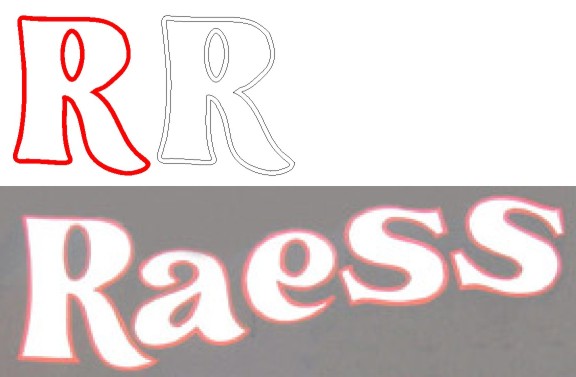
I hate to bother everyone so early, but does anyone know this one? Thanks. Whatthefont can't find it and neither can I.
So I guess it wasn't just me. This looks like a job fooorrrrr .......................(enter the deap voice over)...........................THE VECTOR DOCTOR.:Cool 2:
no offense to anyone that vectorizes for a living but....all compitent sign makers should be able to do this themself.
If it's vectorizing in Flexi or taking an extra 10 minutes to hand cut
a xerox copy on top of a piece of black vinyl and then scanning.
Shovelhead, Thank you once again kicking me in the can today. I got so overwhelmed with this guys logo. What I mean is there is a lot of scroll and hand painted fonts that the first thing that came to mind was let someone else do it. I recognized the other fonts and have redrawn the painted sections but I just spaced on this one. Ya know sometimes I am such a dipS**t. Thanks!
G-R-D....
Looks like it was designed by one of those "Signmen of Yesteryear", ya know the kind that actually could hand-letter with paint or ink. Looks like it is a combination of brush-style letters with the "ss" a serif font.
I agree with Shovelhead.....just copy & scan.
This is only a part of the logo. It is a trucking Co if that tells you what I am dealing with (scroll & hand painted letters bleeding over vinyl cut letters). I just have this part done Thanks to Shovelhead's kick in the kiester. I always forget about all of the resources at my disposal. I am one of those "tunnel visioned" folks. I do think out of the box on occasion, just not today. Thanks man!
You can hand trace in Corel in no time. Put an contour around and it's done. There are many ways tracing can be done. Even in CorelTrace this is an easy task.